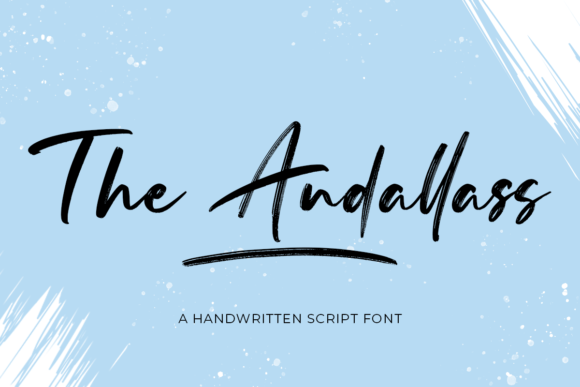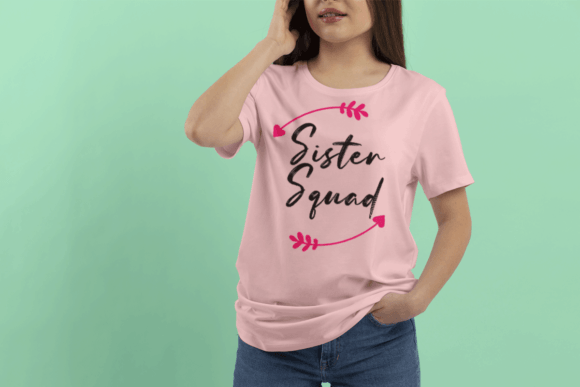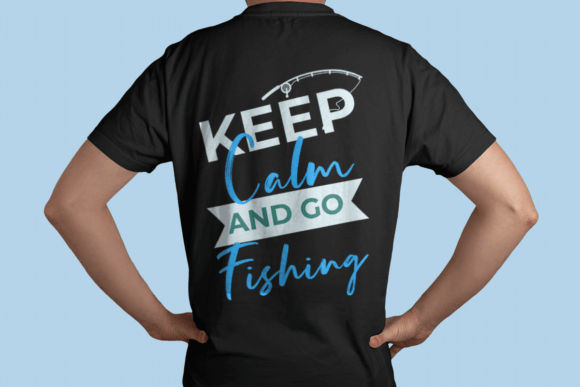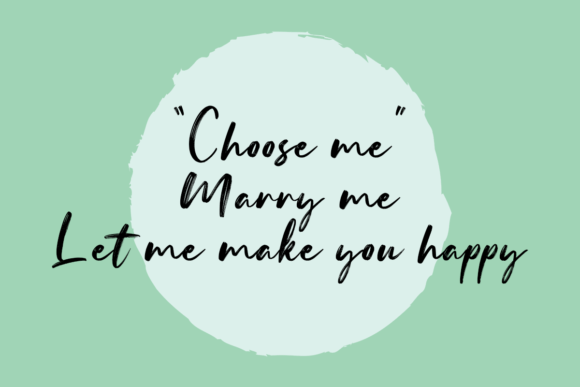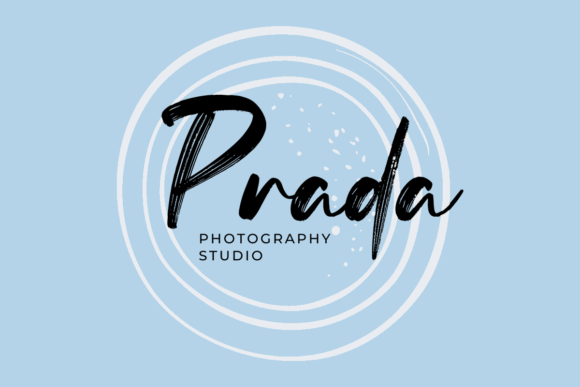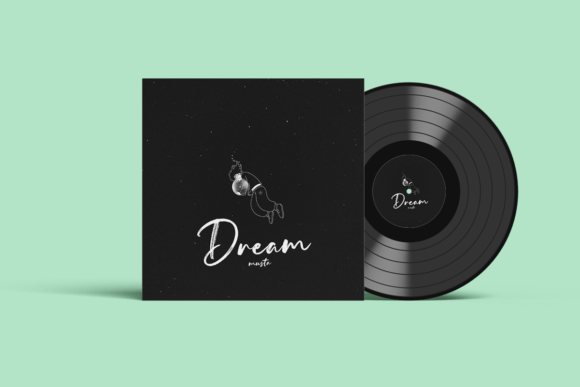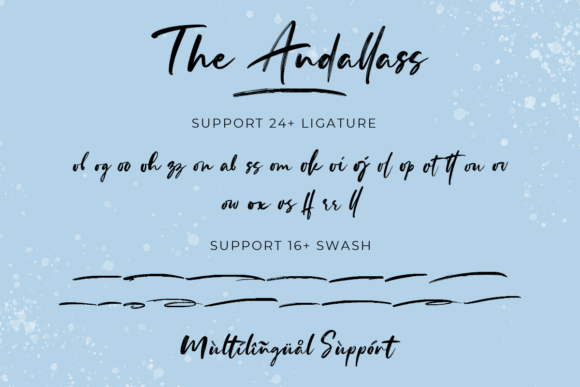
The Andallass Font
About The Andallass Font
“The Andallass” is presented as a beautiful brushed script font accompanied by an underline or swash option. Described as exuding strength, confidence, and dynamism, this font is positioned to add a trendy and characterful touch to your designs.
The brush script style suggests a dynamic and artistic quality, contributing to the overall aesthetic appeal of the font. The availability of an underline or swash option enhances the versatility of the font, providing additional design elements for creative projects.
The PUA encoding feature is emphasized, indicating that users can easily access all the glyphs and swashes. This ensures a smooth and user-friendly experience, allowing for effortless customization through different letter combinations and design variations.
In summary, “The Andallass” is more than just a font; it’s a brushed script designed to bring beauty and character to your designs. Whether you choose to use the underline or swash option, this font is presented as a strong and confident choice, with the added benefit of easy glyph and swash access through PUA encoding.